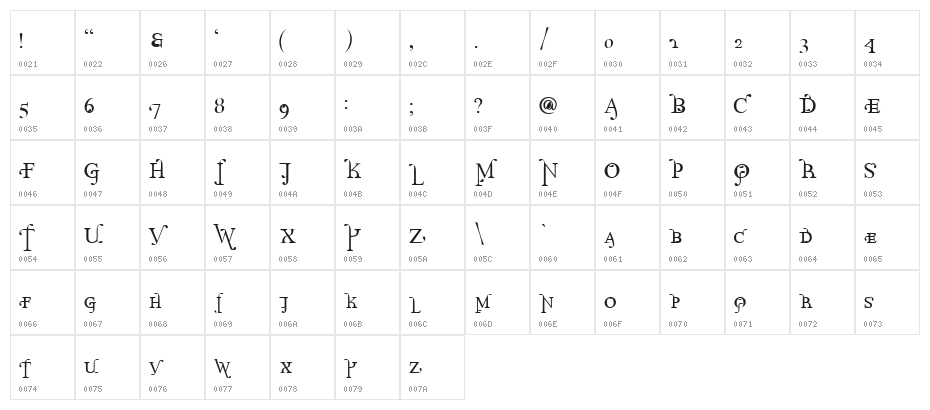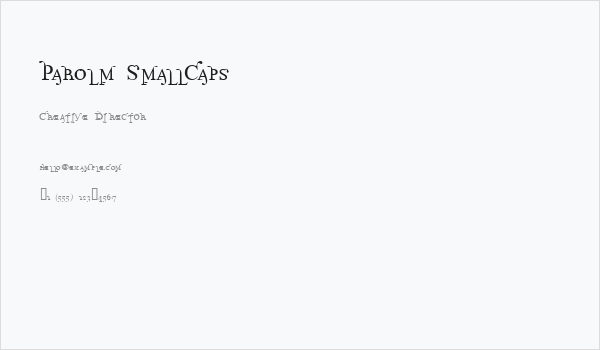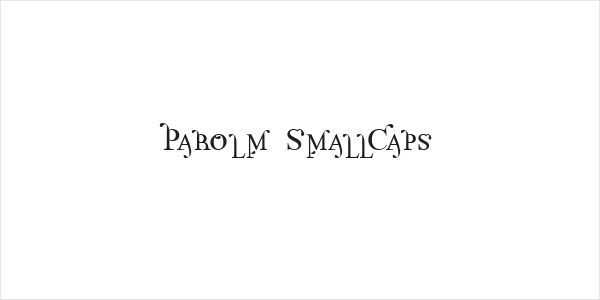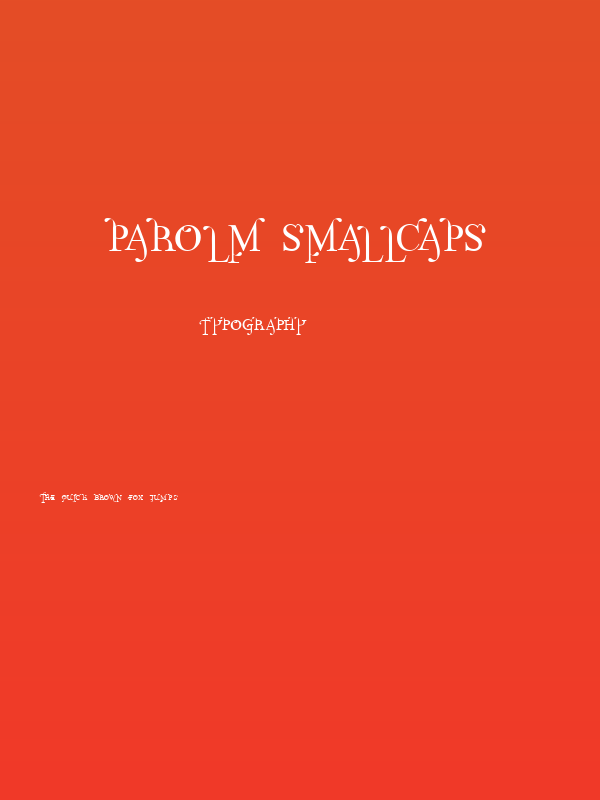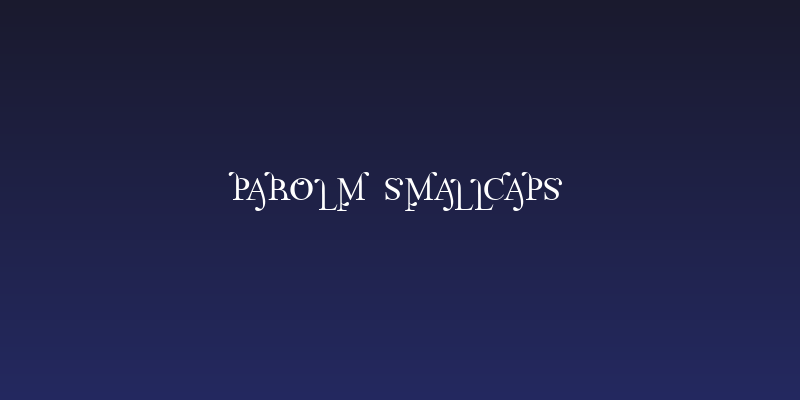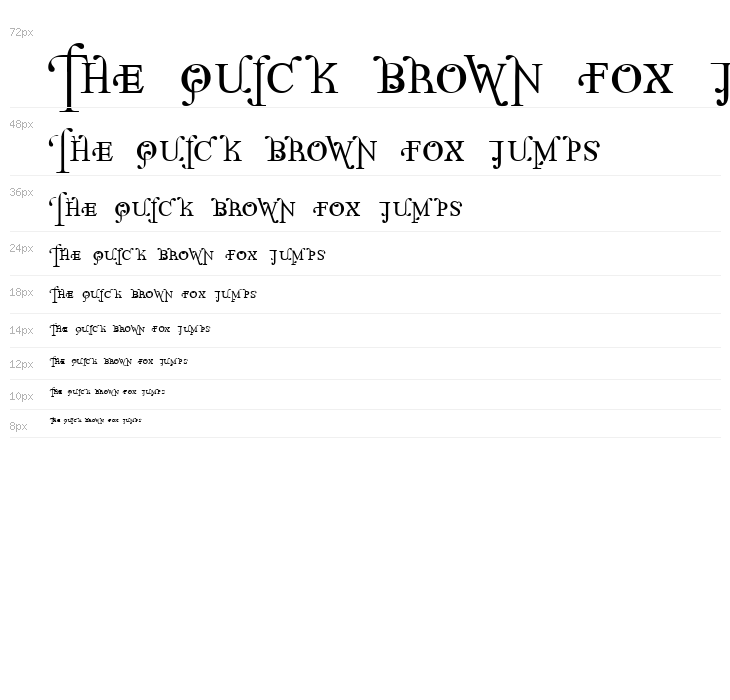
Parolm SmallCaps Font
Parolm SmallCaps Description
This font features a distinctive and decorative style, characterized by its unique serifs and ornamental elements. The uppercase letters are bold and prominent, with intricate details that give them a sophisticated and artistic appearance. The lowercase letters maintain the same decorative flair, ensuring consistency throughout the typeface. Numbers are styled to match the ornate quality of the letters, making them stand out in any design. Special characters are equally elaborate, adding a touch of elegance to punctuation and symbols. Overall, this font exudes a sense of creativity and flair, making it ideal for projects that require a touch of artistic expression.
| Use Case | Headlines, Logos, Artistic projects |
| Proposed Projects | Ideal for invitations, branding, logos, and artistic projects requiring a decorative touch. |